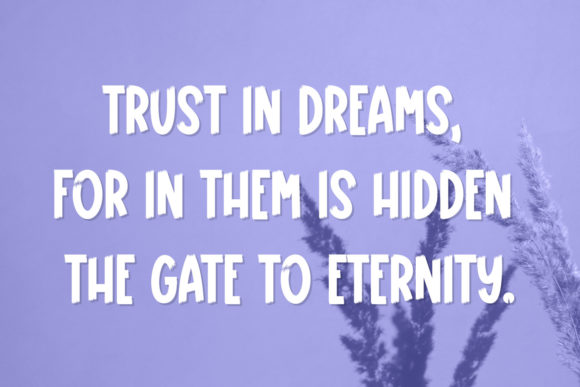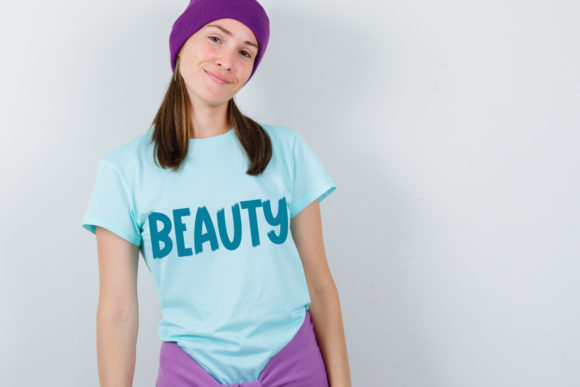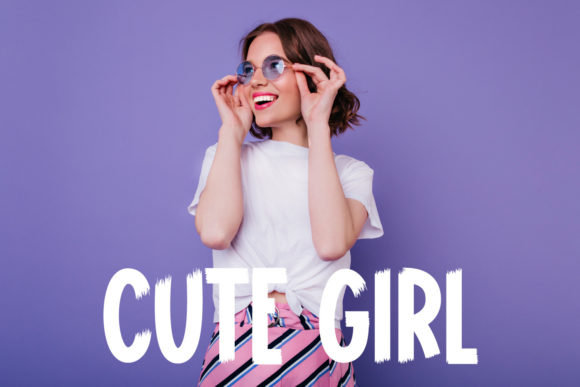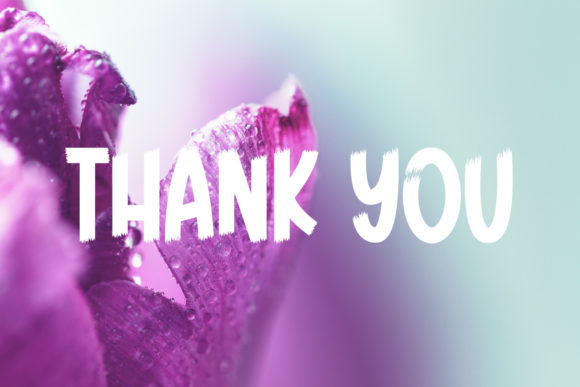
Introducing Brush Color Font: A Friendly and Versatile Display Font
Are you tired of using the same old fonts in your designs? Look no further than Brush Color Font, a friendly, thick lettered, and paint brushed display font that’s sure to elevate your creations. With its unique and eye-catching style, Brush Color Font is a wonderful asset to add to your font library, regardless of the topic or project you’re working on.
What Makes Brush Color Font So Special?
Brush Color Font stands out from the crowd with its distinctive brush-stroked texture and thick, bold letters. The font’s friendly and approachable feel makes it perfect for a wide range of design projects, from playful and creative endeavors to more serious and professional applications. Whether you’re designing a logo, creating a social media graphic, or crafting a website, Brush Color Font is sure to make a lasting impression.
Key Features of Brush Color Font
- Unique Brush-Stroked Texture: The font’s brush-stroked texture gives it a hand-painted feel that’s both creative and eye-catching.
- Thick and Bold Letters: The font’s thick and bold letters make it easy to read and ensure that your message gets noticed.
- Friendly and Approachable Feel: The font’s friendly and approachable feel makes it perfect for a wide range of design projects.
- Highly Versatile: Brush Color Font can be used for a variety of design projects, from logos and social media graphics to websites and more.
How to Use Brush Color Font in Your Designs
Brush Color Font is incredibly easy to use and can be incorporated into your designs in a variety of ways. Here are a few ideas to get you started:
- Logos and Branding: Use Brush Color Font to create a unique and memorable logo that stands out from the crowd.
- Social Media Graphics: Add a touch of personality to your social media graphics with Brush Color Font.
- Websites: Use Brush Color Font to add a creative and eye-catching element to your website’s design.
- Print Materials: Brush Color Font is perfect for print materials like brochures, flyers, and business cards.
Tips for Getting the Most Out of Brush Color Font
Here are a few tips for getting the most out of Brush Color Font:
- Experiment with Colors: Brush Color Font looks great in a variety of colors, so don’t be afraid to experiment and find the perfect hue for your design.
- Play with Texture: The font’s brush-stroked texture is a key element of its charm, so try playing with different textures and effects to add depth and interest to your design.
- Mix and Match: Brush Color Font pairs well with a variety of other fonts, so try mixing and matching to create a unique and eye-catching design.
Brush Color Font is a versatile and eye-catching display font that’s perfect for designers and crafters looking to add a creative touch to their projects. With its unique brush-stroked texture, thick and bold letters, and friendly and approachable feel, Brush Color Font is sure to become a go-to font in your library. So why wait? Download Brush Color Font today and start creating stunning designs that stand out from the crowd!